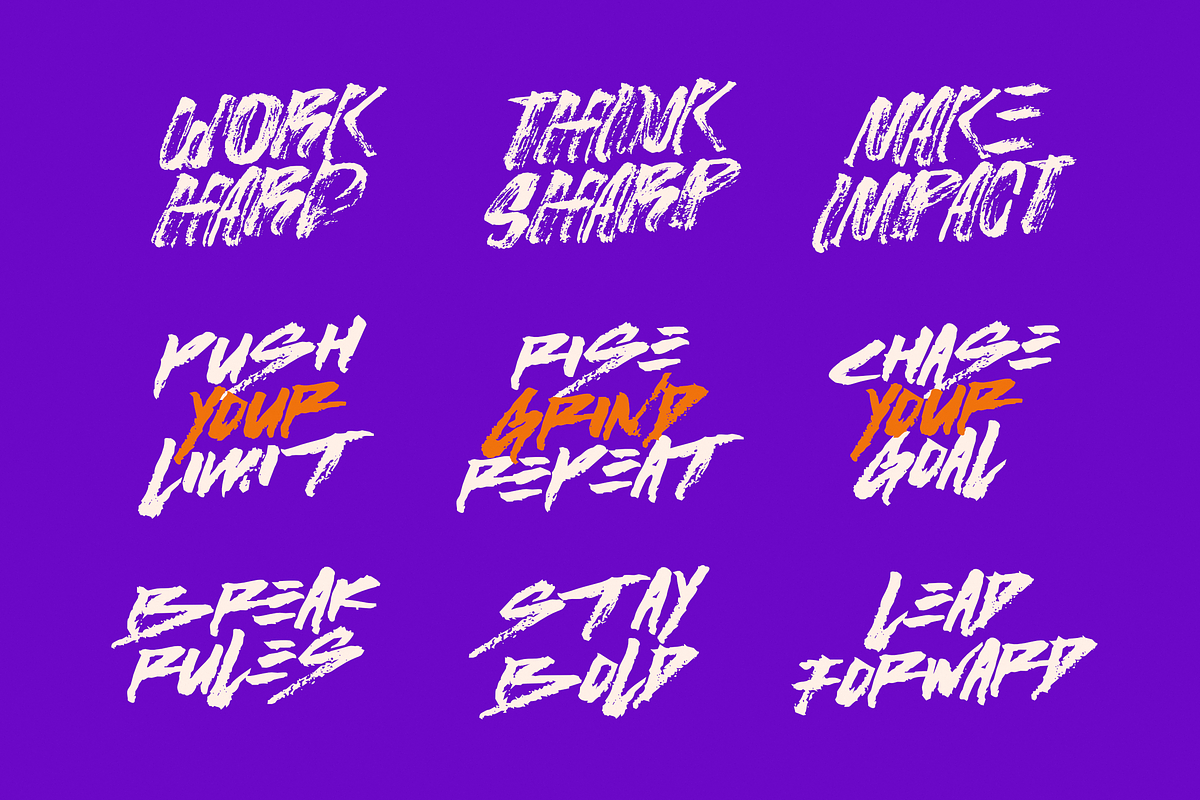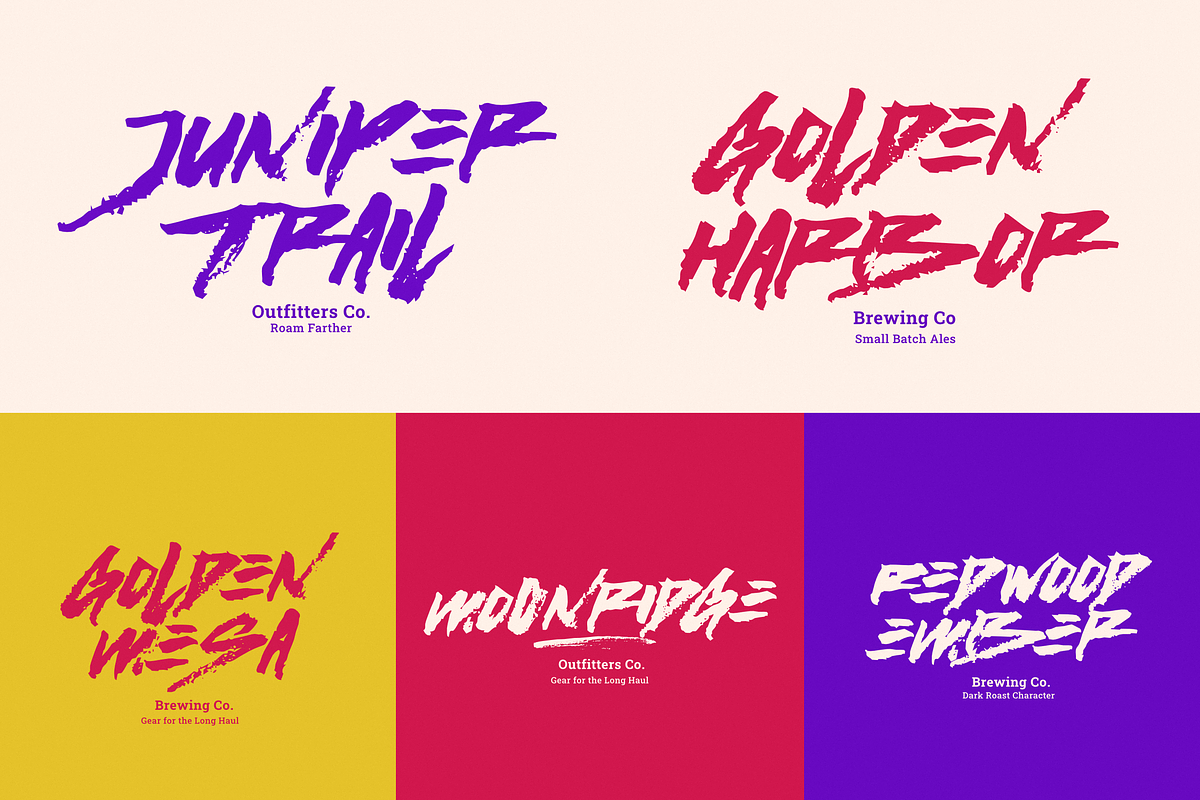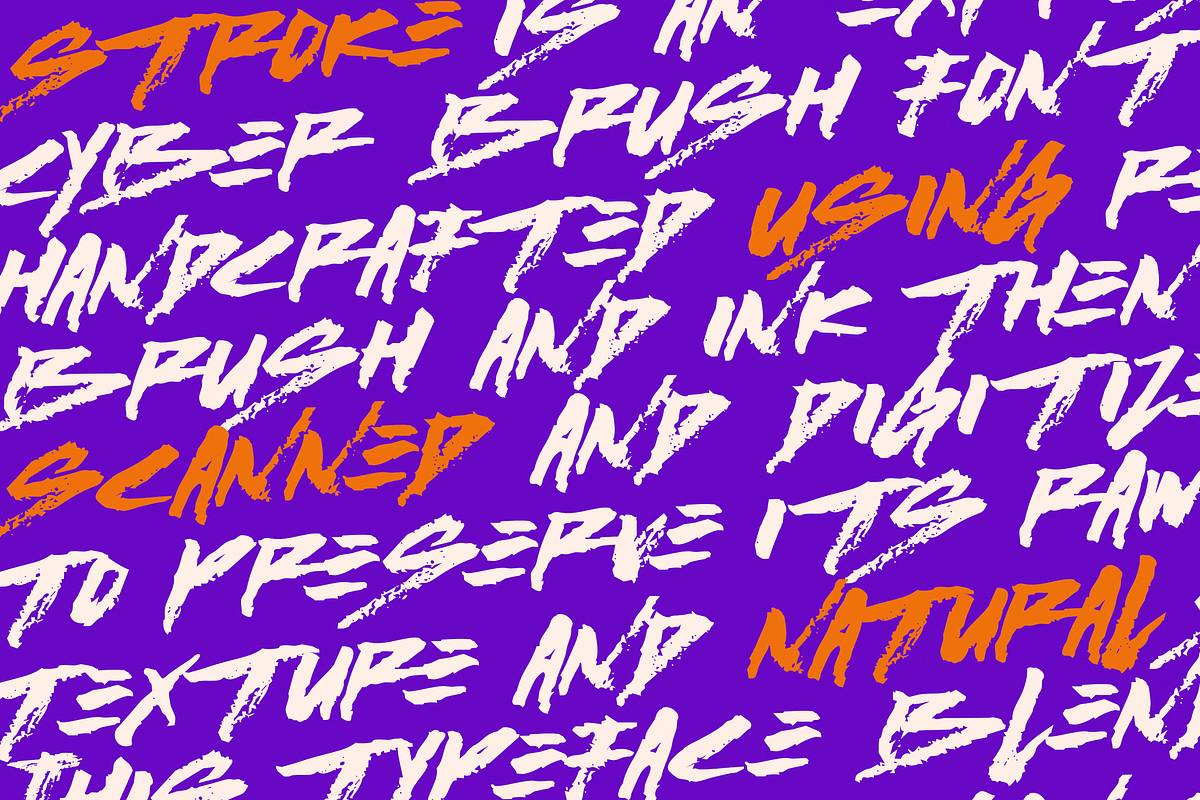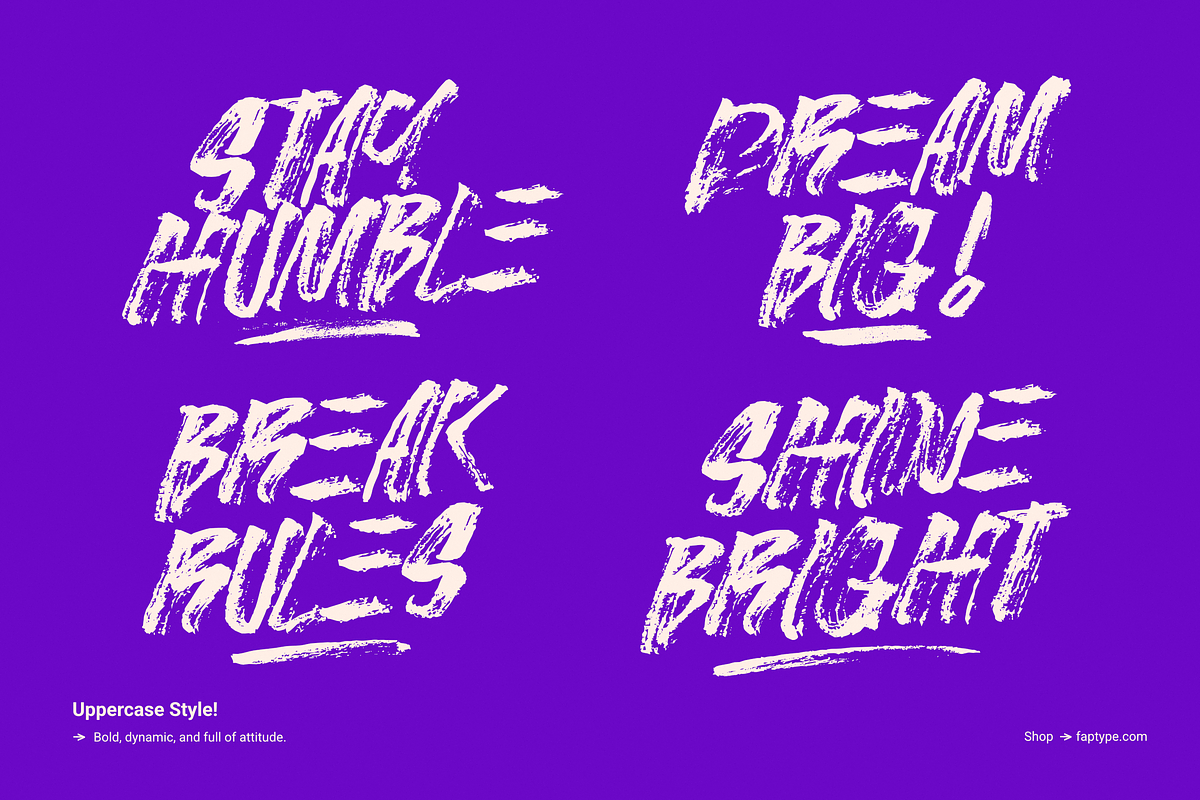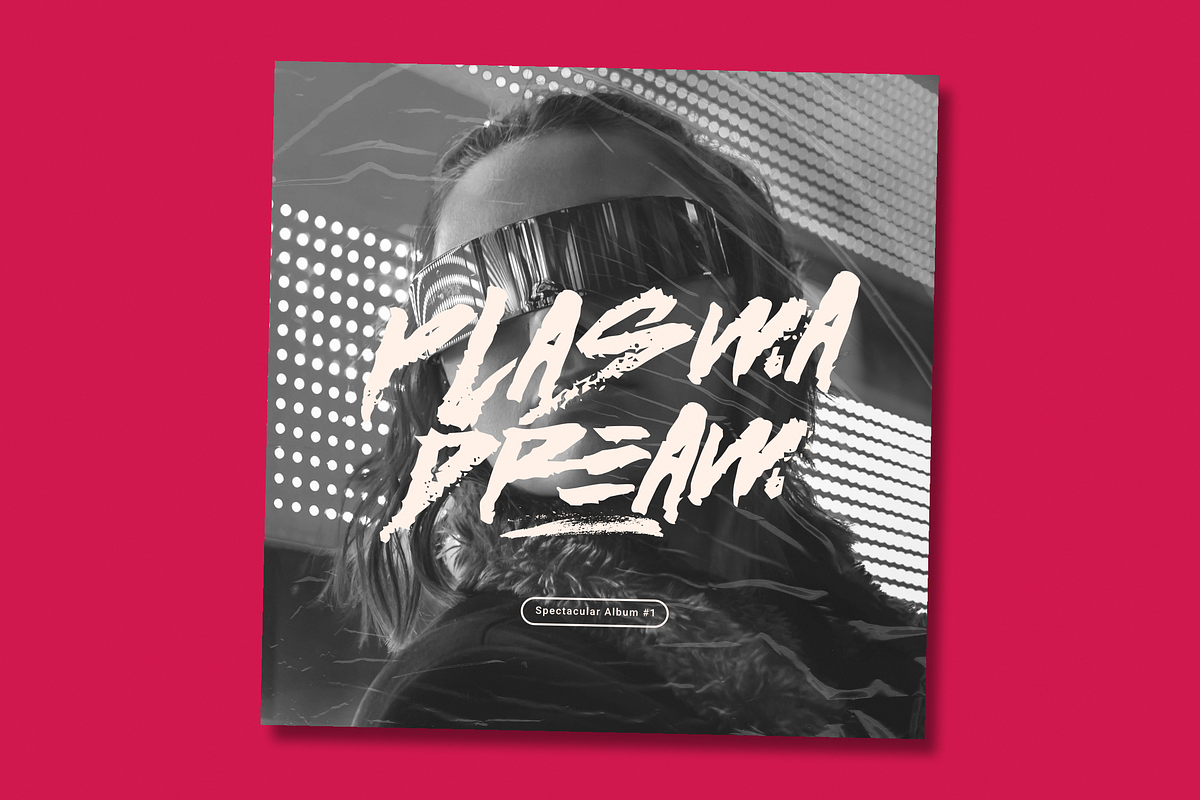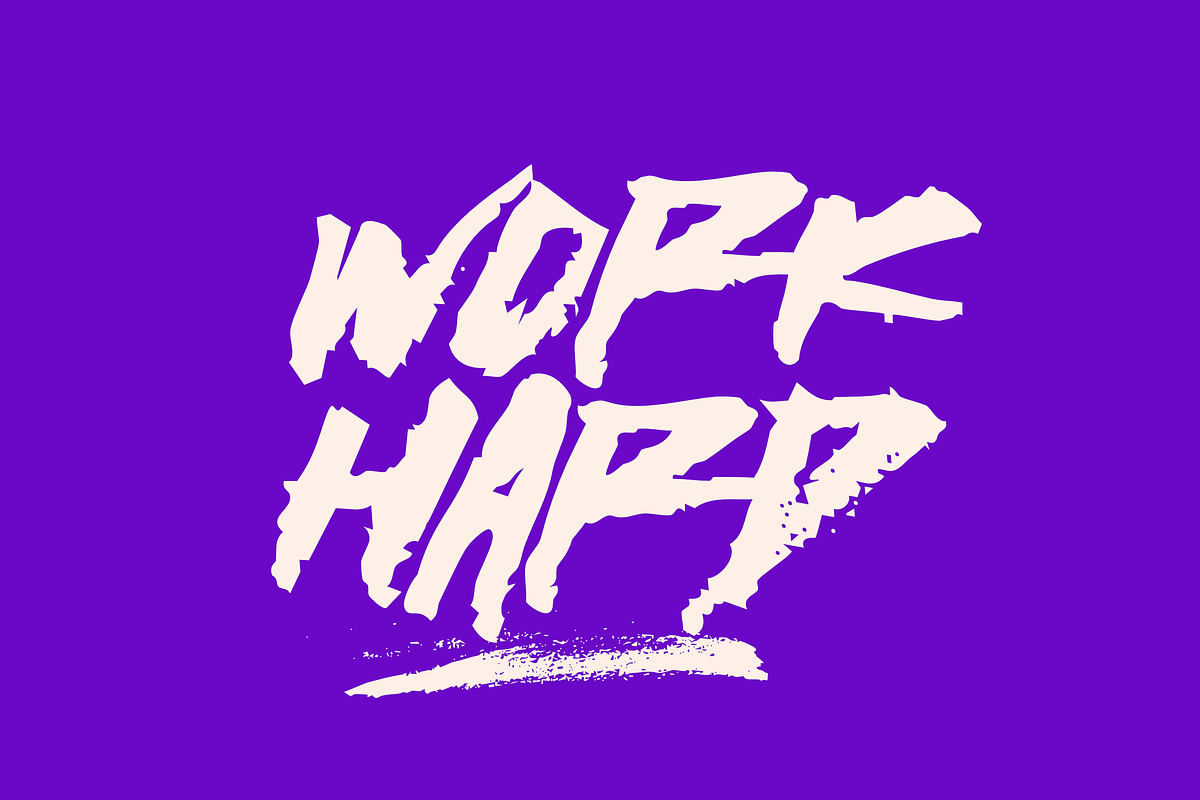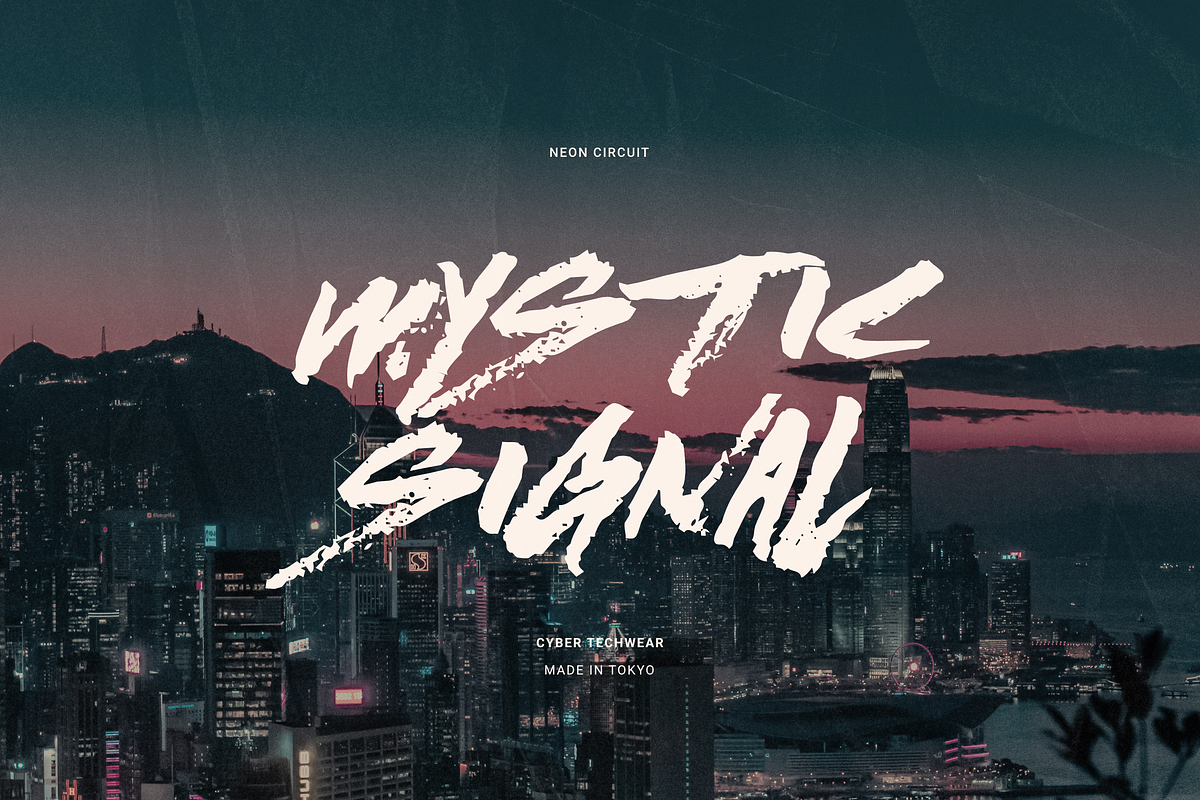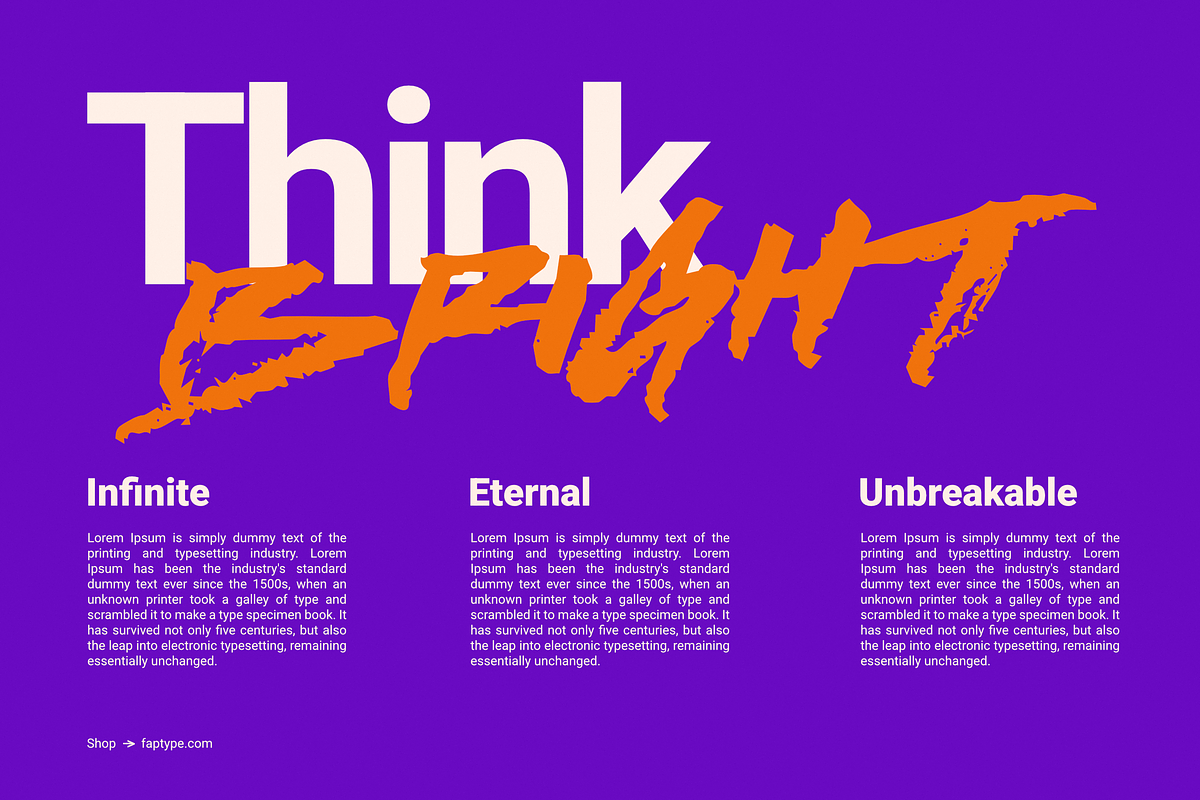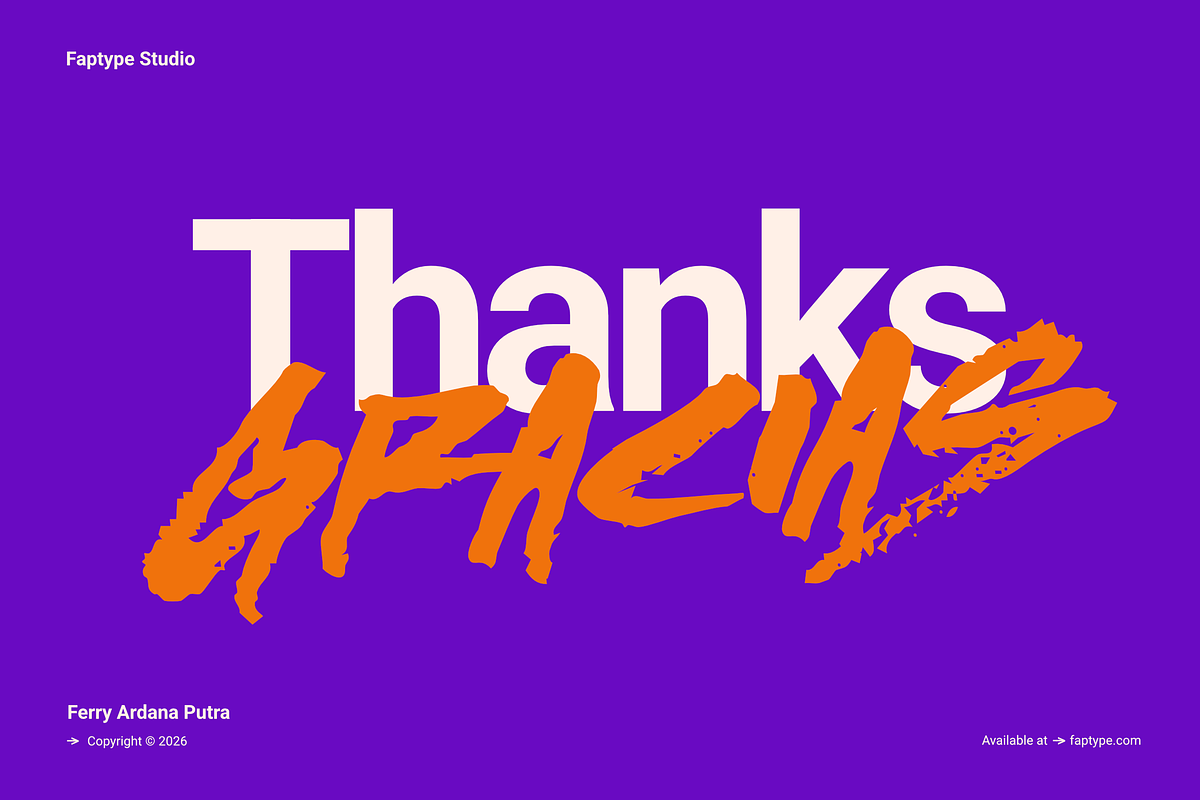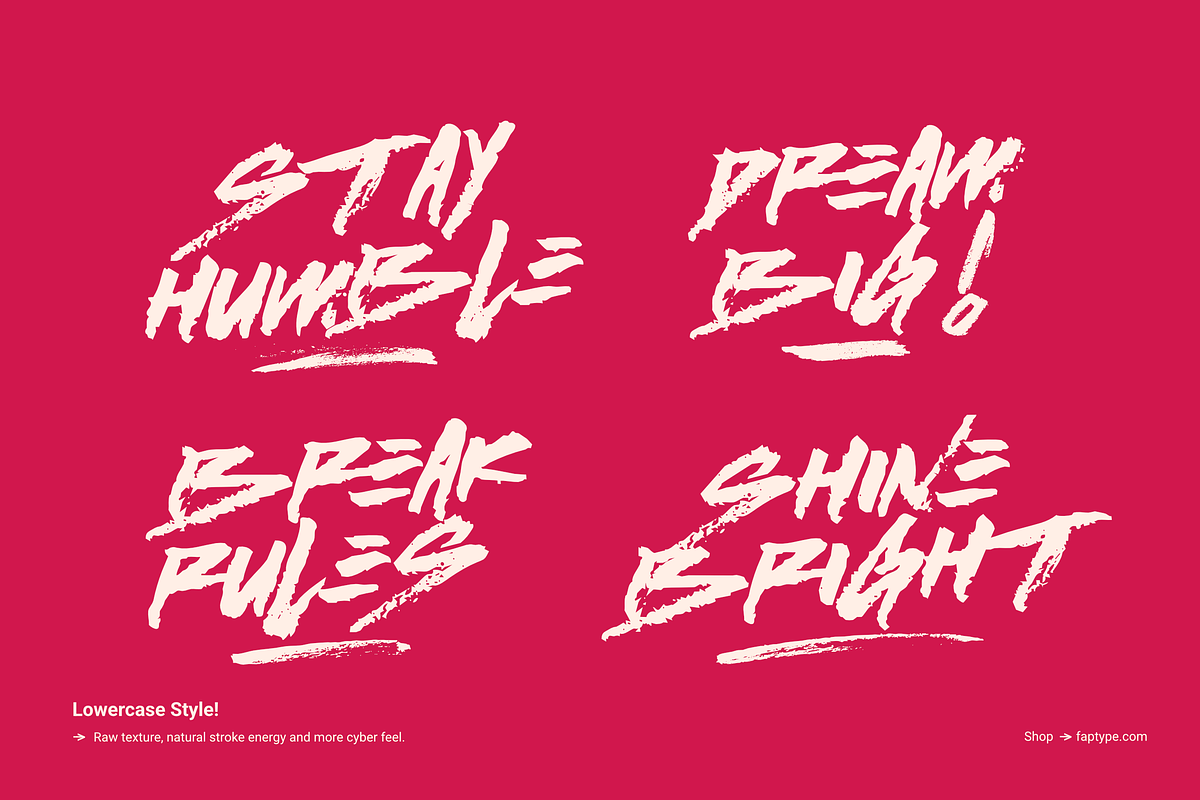
Stroke | Cyber Brush Font
Stroke is a powerful cyber brush font created using real brush and ink, then scanned and digitized to preserve its raw texture and natural stroke energy. The result is a bold typeface that blends authentic handmade brush lettering with a modern cyber aesthetic.
This cyber brush font captures the imperfect beauty of real ink strokes, including pressure variation, rough edges, and organic brush movement. Every letter maintains the natural character of traditional brush work while delivering a strong futuristic attitude.
Because it was created using real brush and ink before being digitized, Stroke carries an authentic handmade texture that feels alive and expressive. The rough brush strokes give the font a dynamic and energetic personality that stands out in modern design.
Cyber Brush Font With Authentic Ink Texture
Stroke combines raw analog brush strokes with a bold digital style, making it a unique cyber brush font for modern typography. The scanned brush texture preserves the original ink grain and natural brush pressure, creating a powerful visual impact.
This font is designed for creators who want typography that feels bold, expressive, and slightly rebellious.
The alternate characters help create more dynamic lettering compositions and prevent repetitive typography.
Modern branding
Streetwear and apparel design
Music posters and album covers
Gaming titles and esports branding
Cyberpunk-themed designs
Merchandise and typography artwork
Its bold brush texture makes it especially effective for high-impact display typography.
- Handmade with real brush and ink
- Authentic scanned brush texture
- Bold and expressive strokes
- Futuristic cyber brush aesthetic
- Perfect for impactful display design
Stroke delivers the raw energy of handmade brush lettering combined with a modern cyber-inspired look.